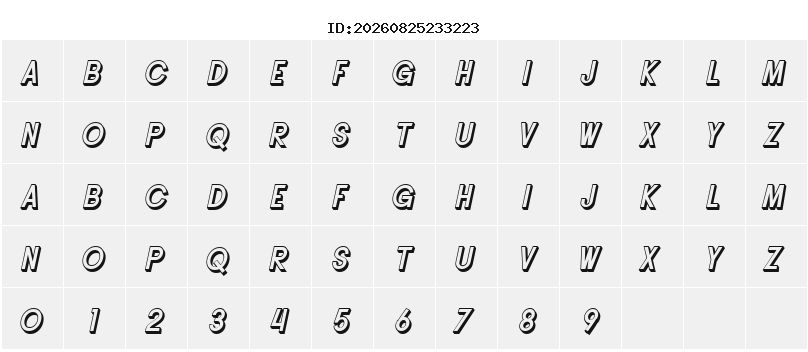
SF Buttacup Lettering Shaded Preview
• Font Name: SF Buttacup Lettering Shaded
• Font Style: Oblique
• Font ID: ShyFontsTypeFoundry: SF Buttacup Lettering Shaded Oblique: 2000
• Full Font Name: SF Buttacup Lettering Shaded Oblique
• PostScript Name: SFButtacupLetteringShaded-Oblique
• Character Count: 253
• Designer: ShyFonts Type Foundry
• Description: SF Buttacup Lettering Shaded Oblique is a trademark of the ShyFonts Type Foundry. Named by Carly Cohen.
About SF Buttacup Lettering Shaded.ttf
SF Buttacup Lettering Shaded.ttf is a modern, elegant sans-serif font designed for ultimate readability and visual harmony. Perfect for branding, headlines, web design, and print materials.